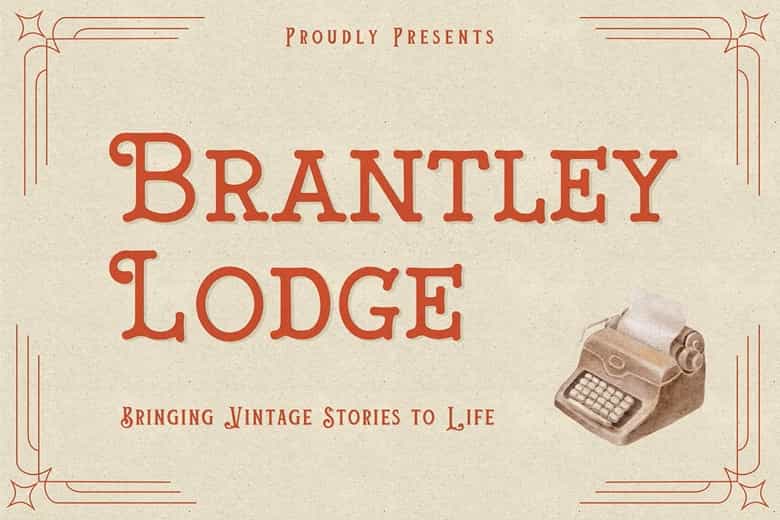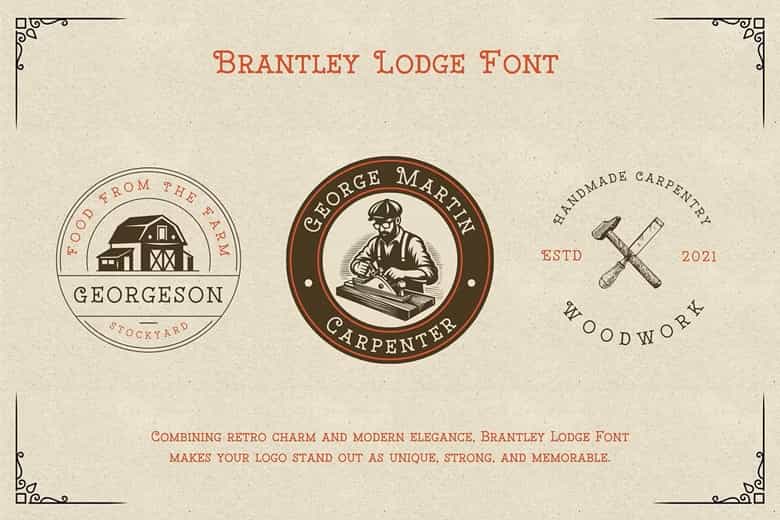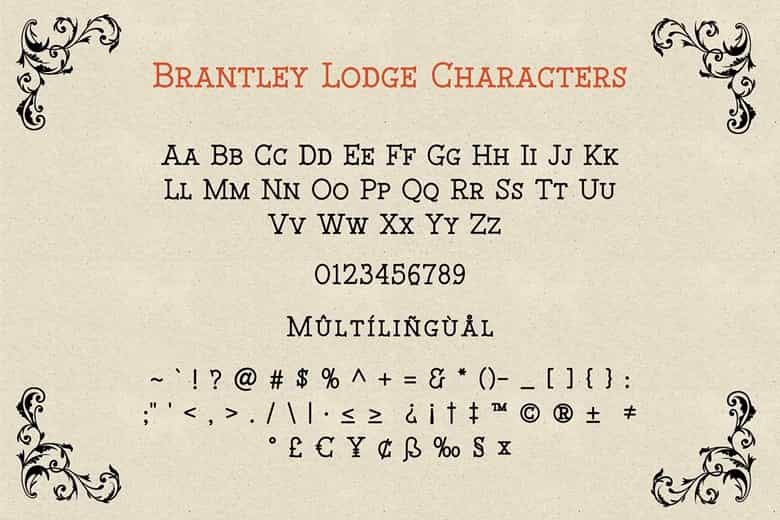
Brantley Lodge brings together old-fashioned beauty and a new, stylish look in its design. The unique and stylish details in this font allow it to add luxury and class to any project. Branding, invitations, packaging designs, wedding items and editorial art all gain a strong and ageless appeal from Brantley Lodge. A combination of vintage and current styles means it can fit with many different types of design ideas.